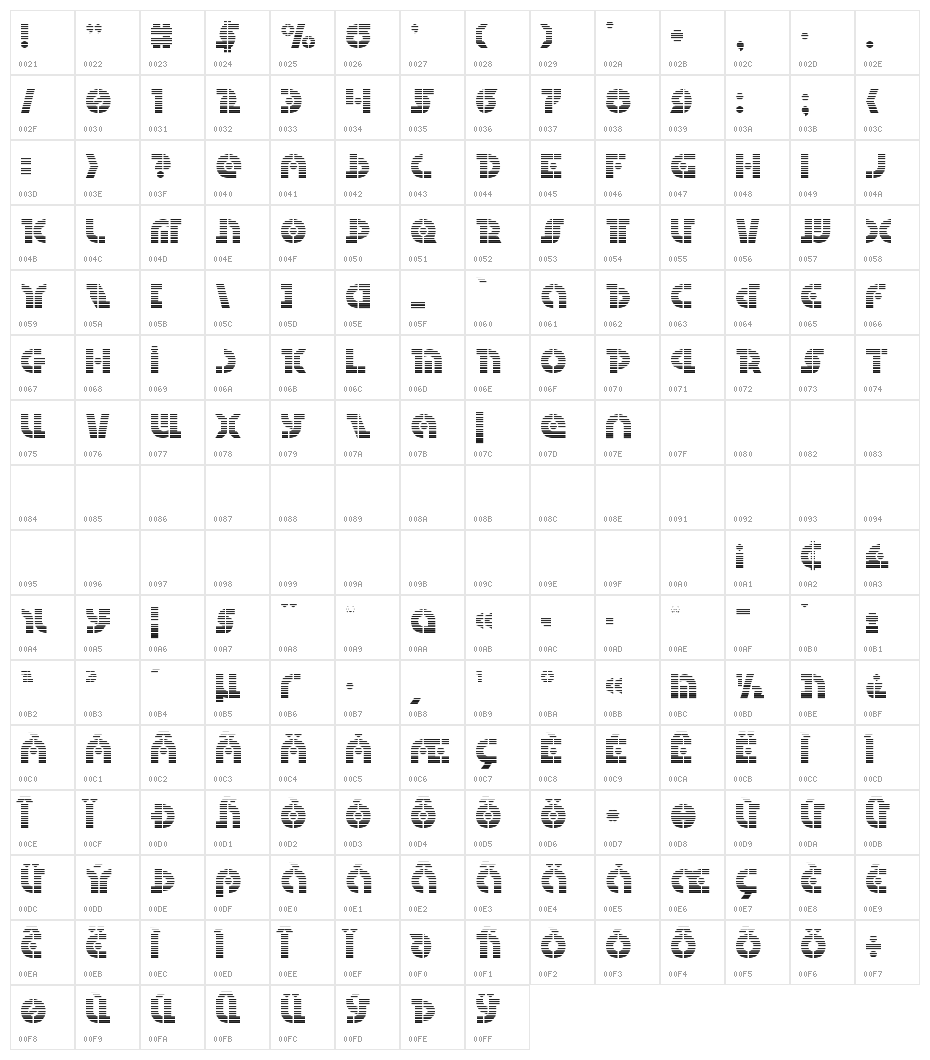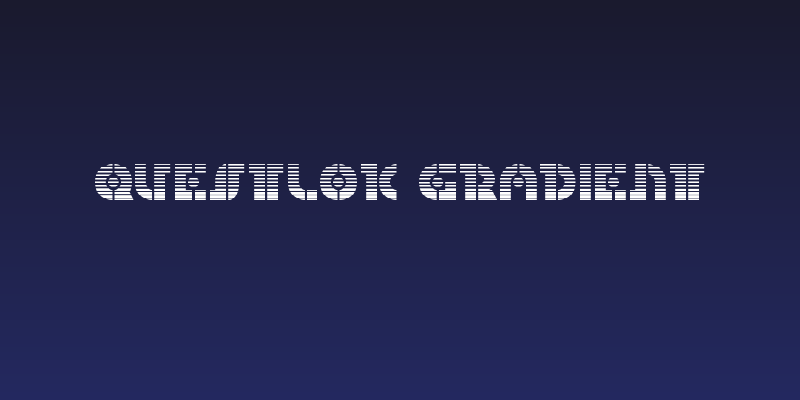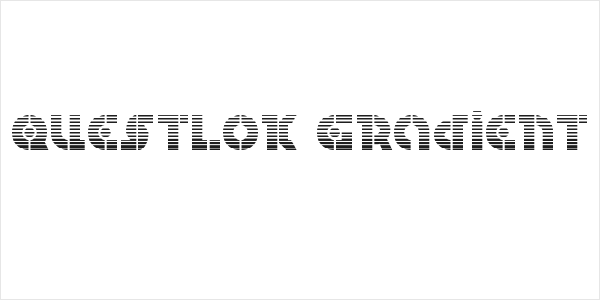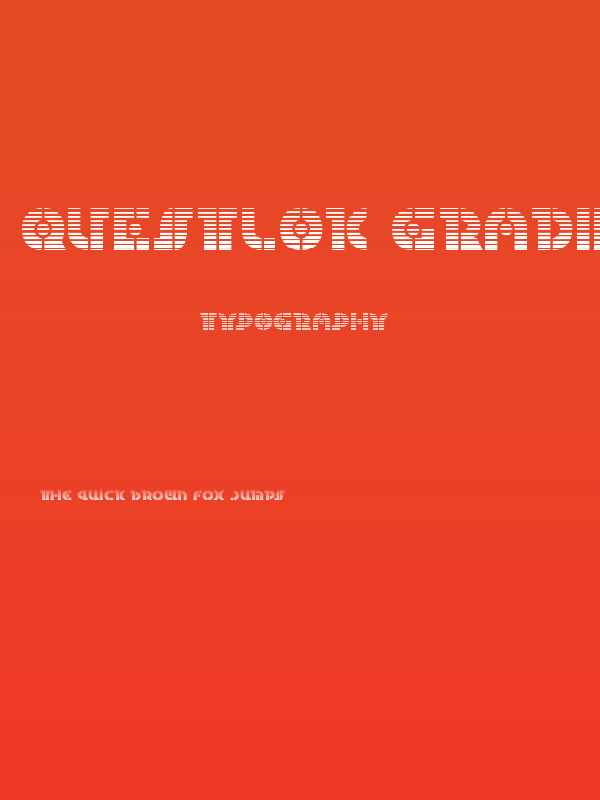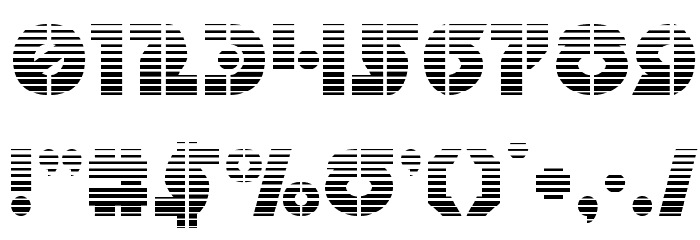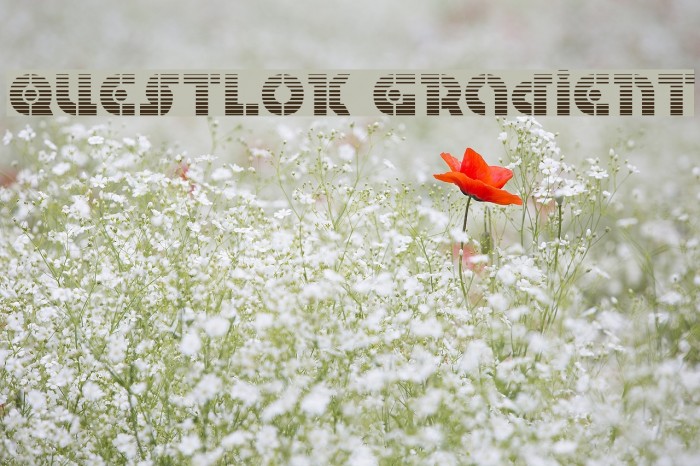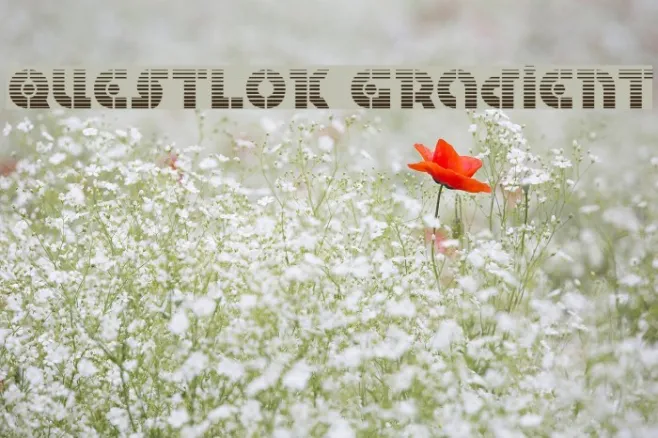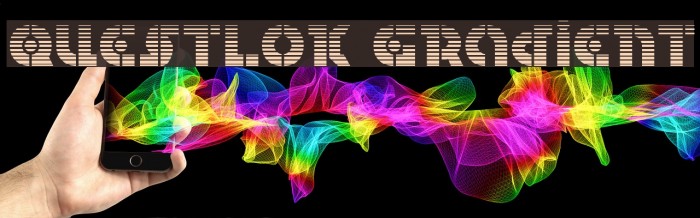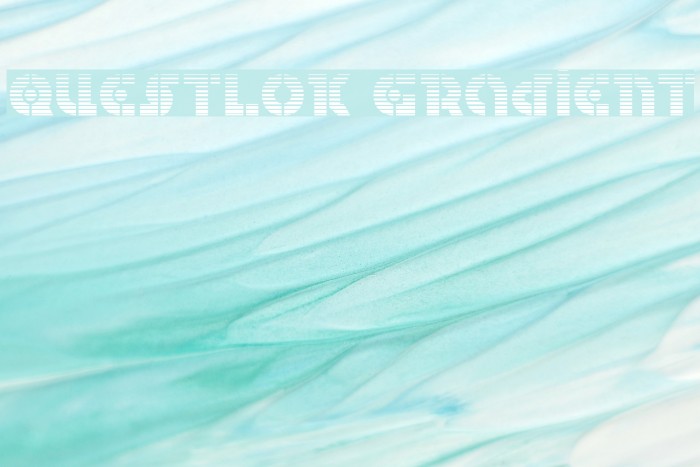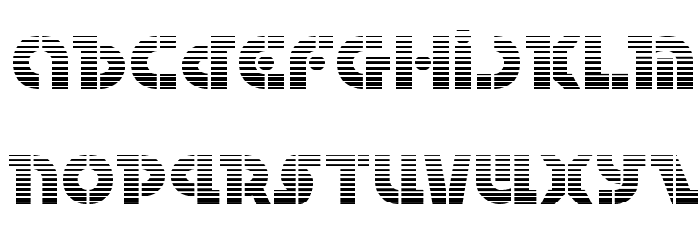
Questlok Gradient Font
Questlok Gradient Description
This font features a unique, striped design that gives it a futuristic and digital appearance. Each character is composed of horizontal lines, creating a sense of movement and energy. The uppercase and lowercase letters maintain a consistent style, with rounded edges and a bold presence. Numbers and special characters follow the same pattern, ensuring uniformity across the font. The overall look is modern and eye-catching, making it suitable for projects that require a distinctive and bold statement.
| Proposed Projects | Ideal for digital art, tech-themed posters, futuristic branding, and innovative product packaging. |